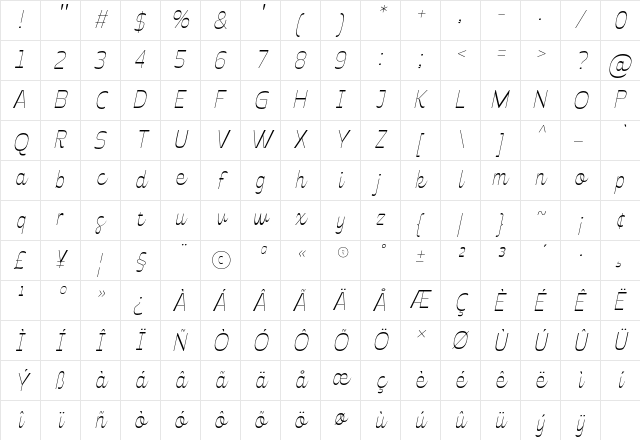
Celestine ThinItalic
Foundry: Anugrah Pasau
Designer: Anugrah Pasau
Design Context for Celestine
Celestine is a composed and adaptable typeface that performs quietly and consistently across a wide range of design contexts. The slanted form adds forward momentum and visual energy. Its slender proportions lend an understated elegance to any composition.
Pro Tip: Use Celestine for emphasis, pull quotes, and subheadings where its slanted energy can add rhythm to the layout.